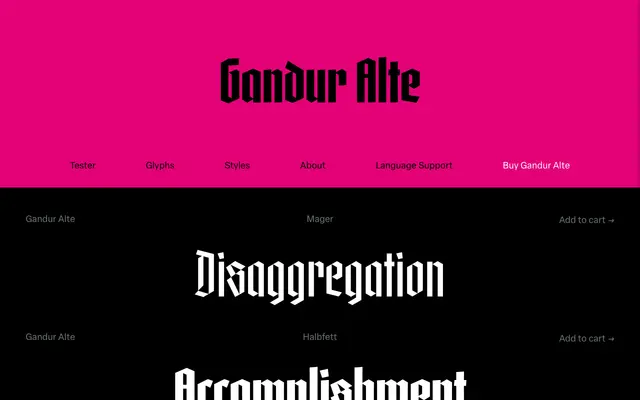
Gandur Alte
Blackletra · Daniel Sabino · 2014
A geometric display textura in three weights, developed from a strict hexagonal grid and drawing on Max Bittrof's Element (1933) while retaining historically accurate letterforms.
Designed by Daniel Sabino and released in 2014, Gandur Alte is the more historically faithful half of the Gandur family, preserving period-accurate forms for characters such as S, X and Z that its sibling Gandur New modernises. The design began on a hexagonal grid but shifted towards pen-based construction in the heavier weights, giving Fett a more organic feel than the strict geometry of Mager. A long-s is available via Stylistic Set, switching automatically to short-s at word endings for historically correct composition.
Gandur Alte is explicitly described as a display textura, rooted in geometric textura tradition with reference to Max Bittrof's Element (1933), and retains historical blackletter forms throughout.